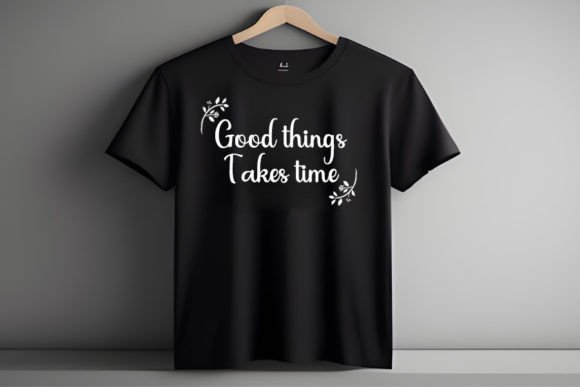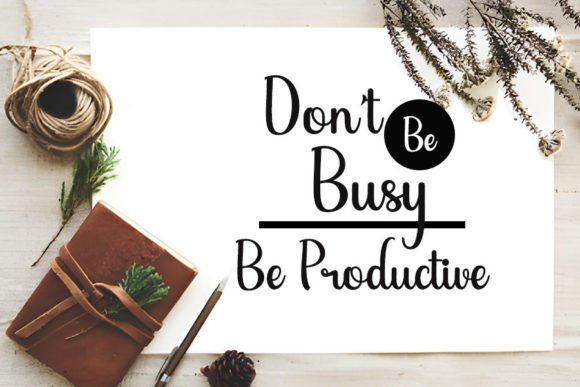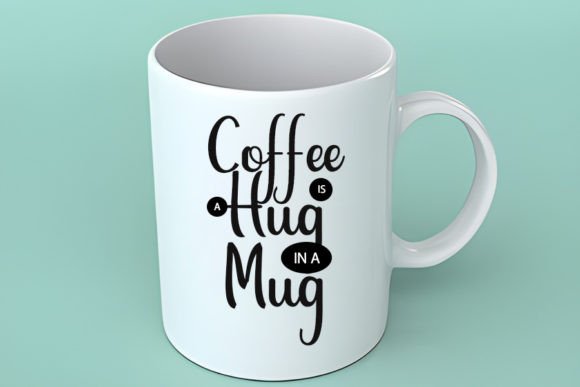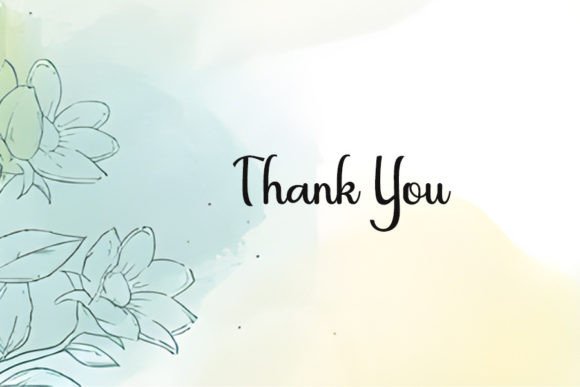
The Quest for the Perfect Font: Discovering Butterflies
I still remember the frustration of working on a project, hours spent on designing and refining every detail, only to be held back by one thing: the font. It was a client request for a stylish, handwritten look that felt both modern and timeless. I scoured the internet, tried countless fonts, but nothing seemed quite right. That was until I stumbled upon Butterflies Font. ✨
A First Impression: What Makes Butterflies Stand Out
Butterflies Font is described as a stylish handwritten font with a contemporary atmosphere and impeccable form, inspired by timeless classic calligraphy. At first glance, it’s easy to see why it’s a standout. The letters exude a sense of elegance and fluidity, perfect for projects that require a touch of sophistication.
Here’s what I love about Butterflies Font:
• ✅ Balanced and Varied: The font offers a great balance of thick and thin strokes, making it versatile for various design projects.
• ✨ Contemporary yet Classic: It successfully blends modern flair with a classic feel, suitable for a wide range of applications.
• 🔍 Impeccable Form: Each letter is carefully crafted, ensuring clarity and beauty in every word.
And here are a few quirks to consider:
• 🤔 Script Complexity: While the font is beautiful, its script nature means it might not be the best choice for very long texts or small font sizes.
• ⚠️ Limited Use in Formal Contexts: Depending on the project, the stylish and somewhat whimsical nature of Butterflies might not fit very formal or traditional designs.
The Story Behind Butterflies Font
The story goes that the creator of Butterflies Font was inspired by the timeless beauty of butterfly wings and the elegance of classic calligraphy. The goal was to create a font that captures the essence of both worlds: the fluidity and grace of natural forms and the precision of traditional typography. The result is a font that feels both contemporary and classic.
Is Butterflies Font suitable for body text? While beautiful, its script nature makes it more suited for headings and short texts. For long body texts, a more straightforward font might be more readable.
Does Butterflies Font include OpenType features? Yes, Butterflies Font comes with a range of OpenType features, including stylistic alternates and glyphs, enhancing its versatility.
Is Butterflies Font available in different weights? Typically, Butterflies Font comes in a single weight, but its design ensures it remains elegant and readable across various sizes and applications.
Butterflies Font is more than just a stylish addition to your typography arsenal; it’s a versatile tool that can elevate your designs with its unique blend of classic elegance and modern flair. Whether you’re working on a branding project, crafting beautiful wedding invitations, or simply experimenting with typography, Butterflies Font is sure to inspire and enhance your creative process.